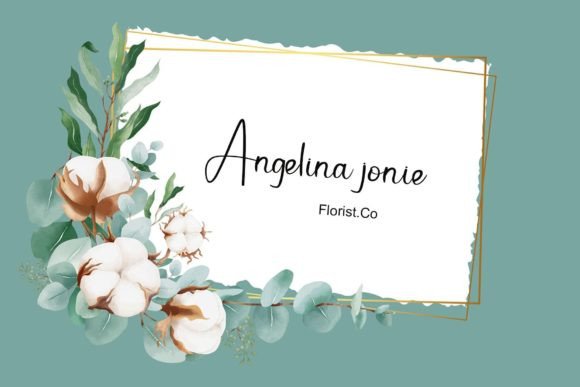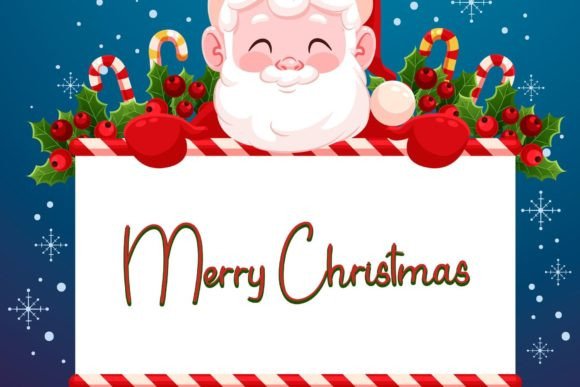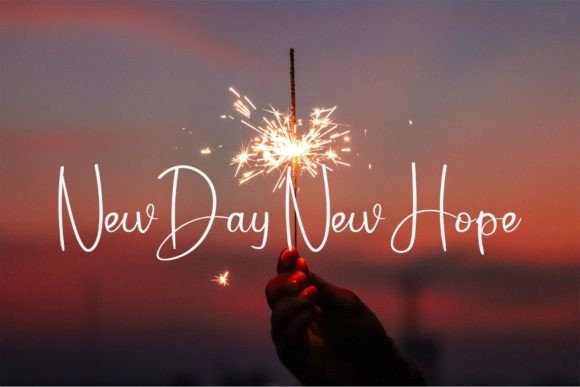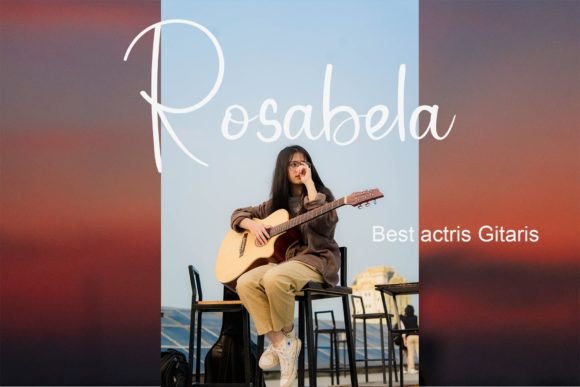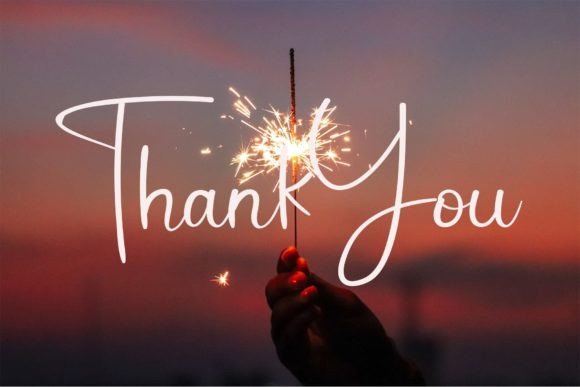
Santa Font
About Santa Font
Santa is a delightful and charming handwritten script font that brings a lovely and sweet touch to your designs. This gentle font is versatile and will enhance a variety of creative projects with its unique appeal. Whether you’re working on invitations, greeting cards, branding, or any other design ideas, Santa is sure to add a joyful and romantic atmosphere to each of your endeavors.
The soft and flowing nature of Santa’s script creates a visually pleasing and harmonious effect, making it well-suited for projects that aim to evoke warmth and emotion. This font is not just a typographic choice; it’s a design element that contributes to the overall mood and aesthetic of your work.
With Santa, you have the opportunity to infuse your projects with a sense of whimsy and charm. Its handwritten style adds a personal and authentic feel, making it an excellent choice for conveying sentiments and emotions in your designs.
In summary, Santa is more than just a font; it’s a creative tool that brings a touch of loveliness and sweetness to your projects. Embrace its gentle script, and let it be the element that transforms your designs into visually captivating and emotionally resonant creations.